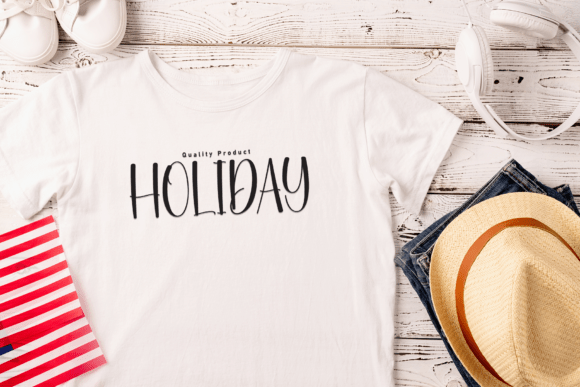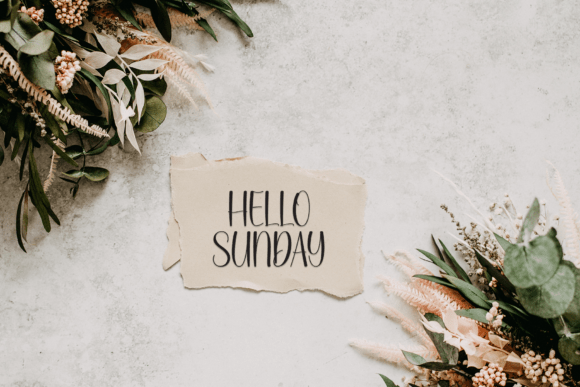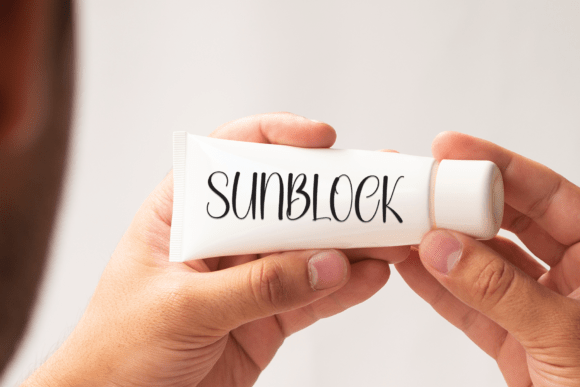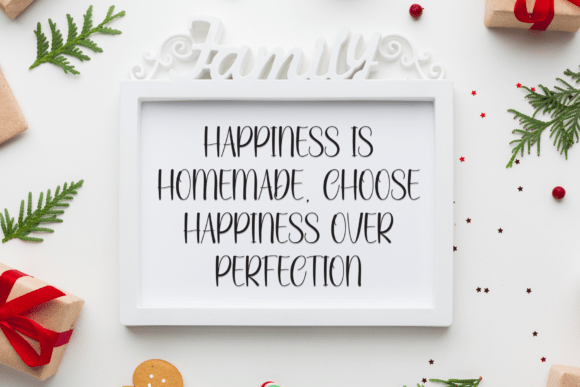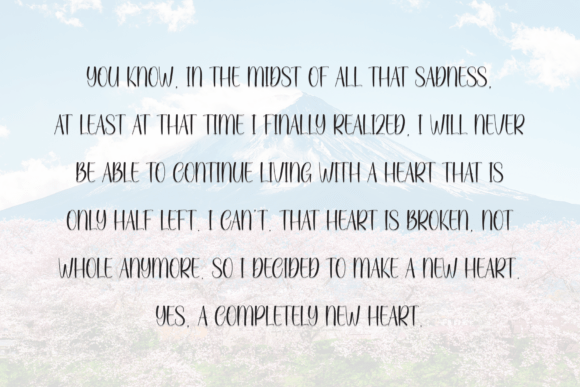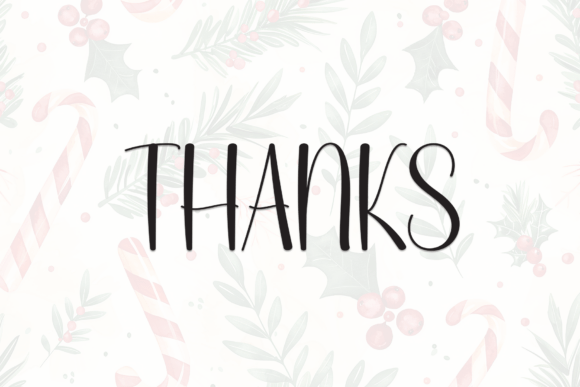
Introducing Christmas Alphabet Font: A Playful and Festive Handmade Font for the Holiday Season
Are you looking for a font that captures the magic and cheer of the holiday season? Look no further than Christmas Alphabet Font, a playful and festive handmade font that’s perfect for adding a touch of warmth and creativity to your Christmas-themed designs. With its tall, slightly irregular letterforms and handcrafted look, this font is sure to bring a smile to everyone’s face.
A Handcrafted Look that Adds Warmth and Character
Christmas Alphabet Font is a carefully crafted font that boasts a unique, handcrafted look. Its tall, slightly irregular letterforms give it a charming, whimsical feel that’s perfect for creating cozy, heartfelt designs. The font’s handcrafted look also adds a touch of warmth and personality to any project, making it ideal for designs that require a personal touch.
Perfect for a Variety of Christmas-Themed Designs
Whether you’re designing greeting cards, gift tags, holiday invitations, seasonal posters, advent calendars, DIY crafts, or festive packaging, Christmas Alphabet Font is the perfect choice. Its casual and fun personality makes it a favorite for designers and crafters who want to create projects that celebrate the magic of the holiday season. With this font, you can add a joyful, whimsical charm to every project, making it a must-have for anyone who loves to create festive designs.
Complete Access to Every Glyph and Swash
One of the best things about Christmas Alphabet Font is that it comes with complete access to every glyph and swash. This means that you have endless possibilities for creating unique and personalized designs that showcase your creativity. The font is also PUA encoded, making it easy to use and navigate.
What You Can Create with Christmas Alphabet Font
With Christmas Alphabet Font, the possibilities are endless. Here are just a few ideas to get you started:
- Greeting Cards: Create personalized greeting cards for friends and family that showcase your creativity and style.
- Gift Tags: Add a touch of festive flair to your gifts with custom gift tags that feature your name or a special message.
- Holiday Invitations: Design beautiful holiday invitations that set the tone for your festive gatherings and parties.
- Seasonal Posters: Create eye-catching posters that capture the magic of the holiday season and showcase your design skills.
- Advent Calendars: Design custom advent calendars that help you and your loved ones count down to Christmas.
- DIY Crafts: Add a personal touch to your DIY crafts, such as ornaments, garlands, and decorations, with custom labels and tags.
- Festive Packaging: Create custom packaging for your gifts that showcases your creativity and style.
Why Choose Christmas Alphabet Font?
So why choose Christmas Alphabet Font for your holiday designs? Here are just a few reasons:
- Unique and Playful: This font is unlike any other, with its tall, slightly irregular letterforms and handcrafted look.
- Versatile: This font can be used for a wide range of designs, from greeting cards to festive packaging.
- High-Quality: The font is carefully crafted to ensure that it looks great in any design.